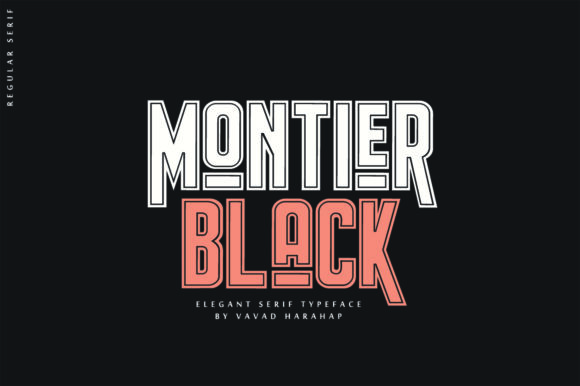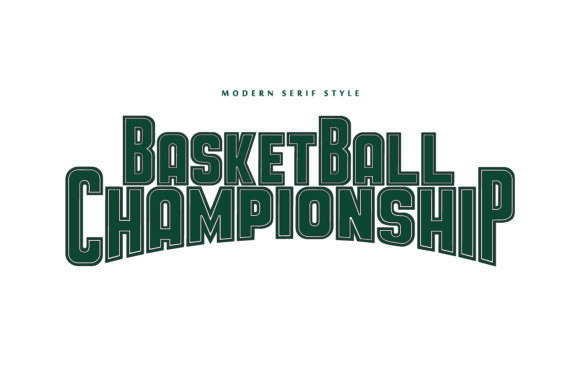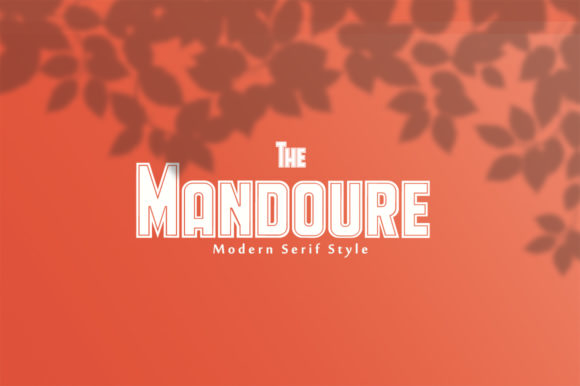
Montier Black Font
About the Montier Black Font
Add a touch of class to your work with the Montier Black Font, a truly exceptional typeface. Montier Black is a daring and all round display font. Add this chunky lettered font to your sports related designs and notice how it makes them come alive!
Montier Black’s bold, chunky letterforms are ideal for headlines, posters, and branding projects needing a strong, impactful visual presence. Its high contrast and assertive style works exceptionally well in sports-related applications, as well as for edgy fashion brands or music promotions. Avoid using it for body text or long-form content; its weight and size make it unsuitable for readability in smaller sizes.
Pairing Montier Black effectively requires a contrasting typeface to balance its heaviness. A clean sans-serif like Open Sans or a more geometric font such as Futura would create a sophisticated contrast, while a delicate script font could add a touch of elegance, depending on the desired balance. Consider using a lighter weight sans-serif for body copy, maintaining visual harmony with the headline.
The overall personality of Montier Black is assertive and modern, conveying power and confidence. Its strong forms suggest action and energy, making it a perfect choice for projects aiming for a bold, memorable impact.
Montier Black Font Usage Examples
Montier Black Font Example